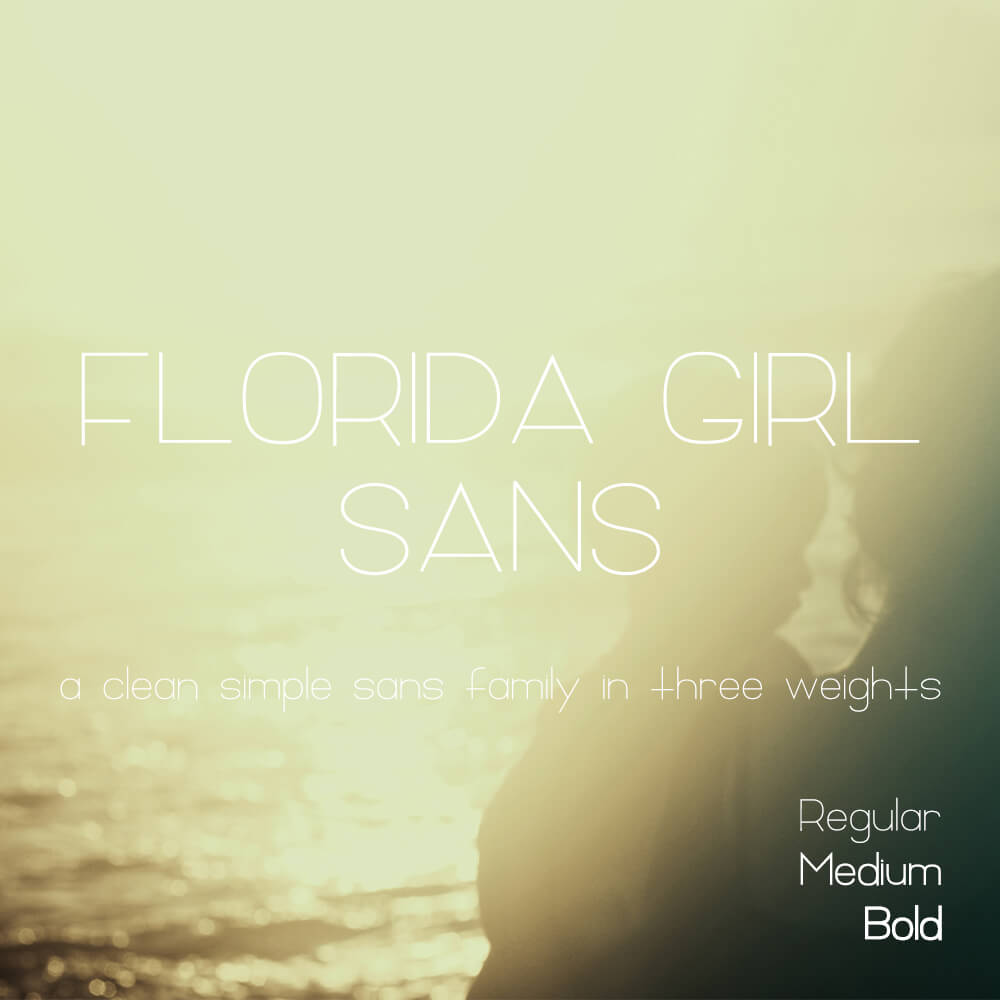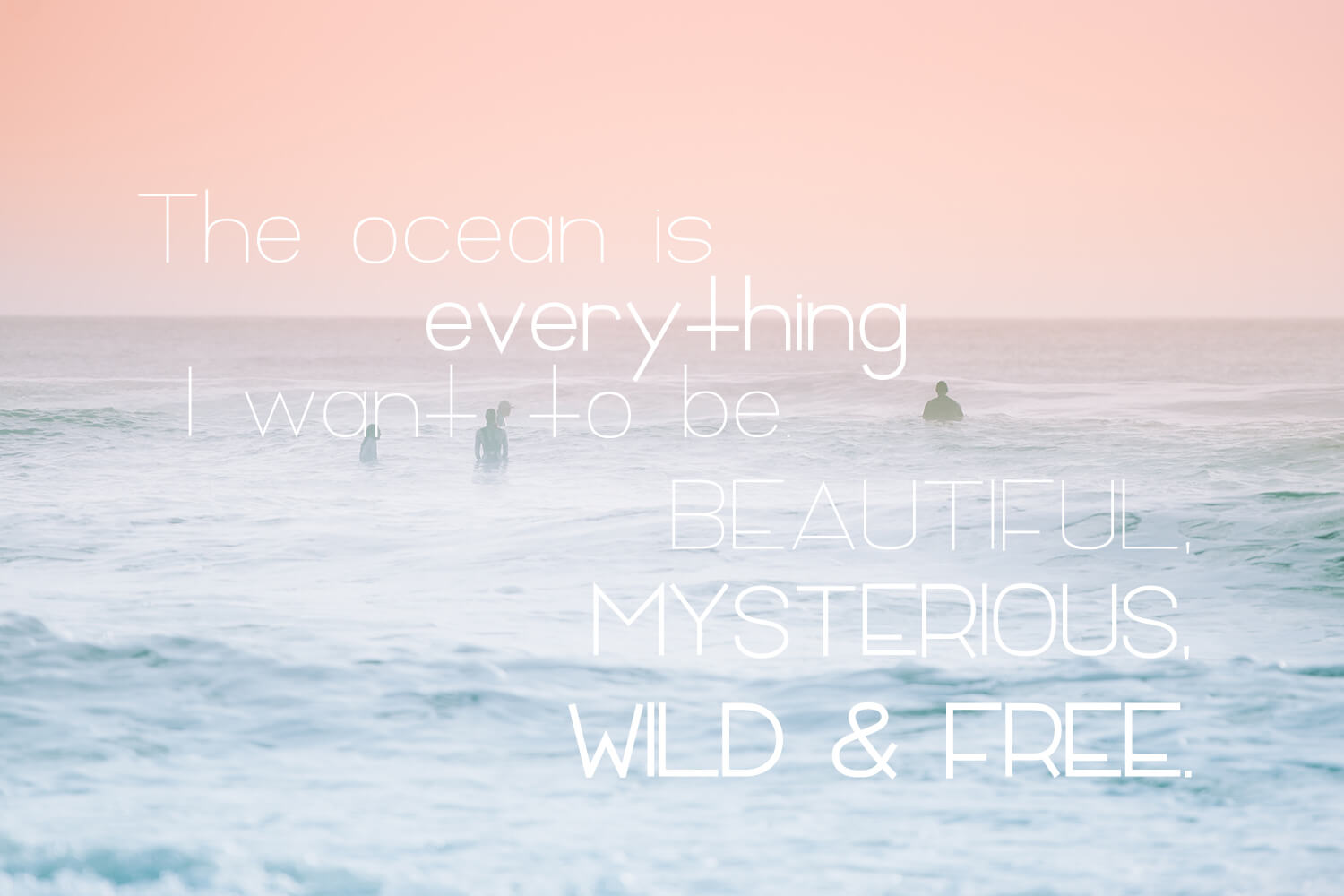
Florida Girl Sans Font Family
Florida Girl Sans Font Family is a crisp, simple, clean sans group that includes regular, medium, & bold weights — that’s only $2 a font! Want a badass script to pair it with? Check out Florida Girl Script.
The Florida Girl Sans Font Family is a crisp, simple, clean sans group that includes regular, medium, & bold weights — that’s $2 a font!
Includes Western European language support for the following characters: AÀÁÂÃÄÅCÇDÐEÈÉÊËIÌÍÎÏNÑOØÒÓÔÕÖUÙÜÚÛWẂŴẄẀYÝŸỲŸÆŒßÞþ
Florida Girl Sans Regular
Florida Girl Sans Medium
Florida Girl Sans Bold